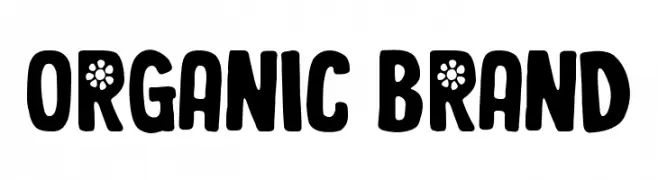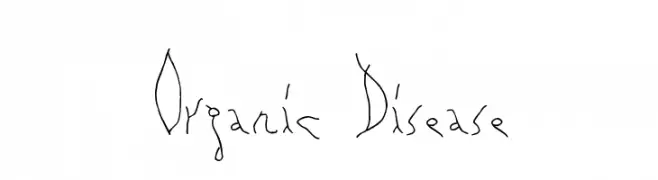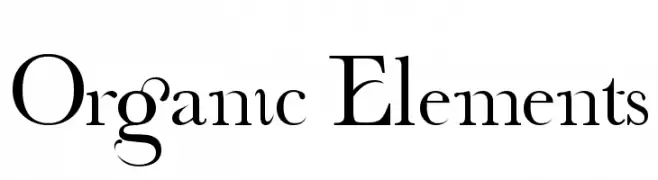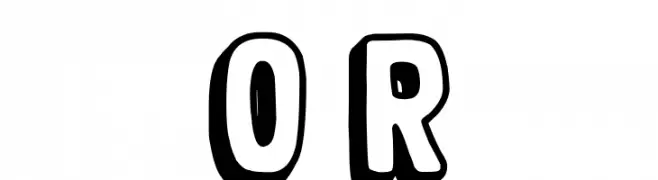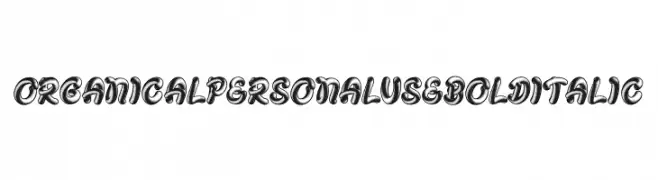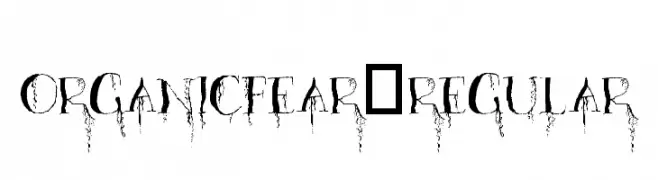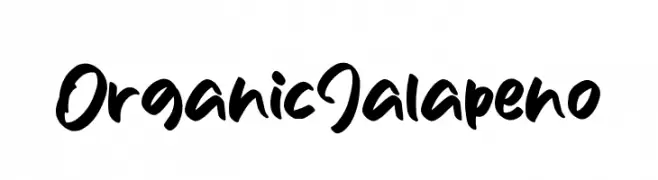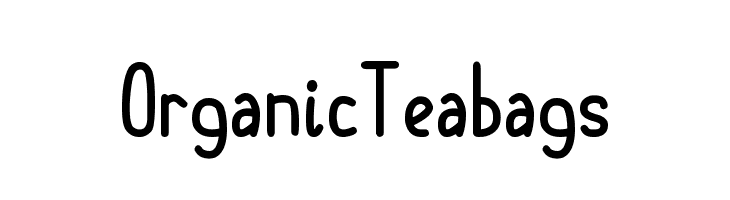
A flowing, cursive script font with elegant, interconnected characters.
A bold, playful font with rounded letterforms and a cohesive design.
A whimsical, hand-drawn font with elongated, irregular letters.
A modern serif font with organic elements and playful swashes.
A bold, rounded font with an outlined, three-dimensional effect.
A playful, handwritten font with rounded, irregular letterforms.
A bold, italicized, and decorative font with a three-dimensional, organic style.
A haunting, organic font with dripping, vine-like letters.
A bold, expressive handwritten font with fluid, dynamic strokes.